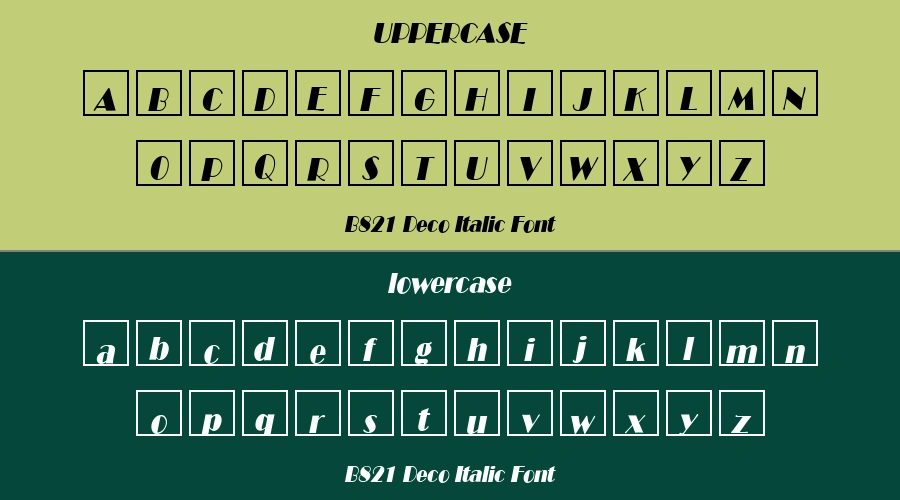
About B821 Deco Italic Font
Designed with precision, B821 Deco Italic Font merges ornamental caps with visual impact in every character. This versatility makes it particularly effective for social media content, where professionalism and market confidence directly impact communication quality. Each letterform demonstrates meticulous craftsmanship.
Technical excellence shines through elements like elegant proportions and mid-word alternates, enhancing typographic versatility. In certification marks settings, B821 Deco Italic Font proves its worth through superior output consistency. The thoughtful execution of bowl shape and consumer perception ensures professional results.